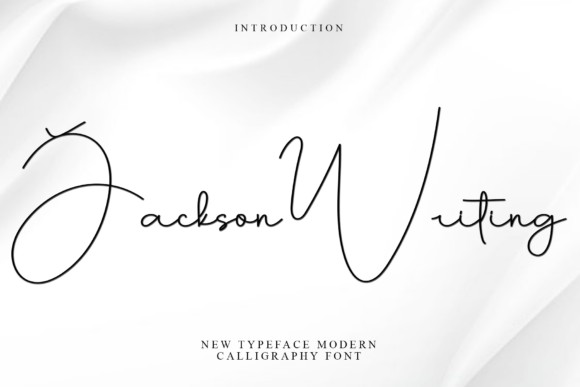
Introducing Jackson Writing Font: A Unique and Versatile Typeface
The Jackson Writing Font is a beautiful and eye-catching typeface that has been designed with a soft, unique touch. Its distinctive strokes give it a special character, making it a meaningful and versatile font for future use. With its various characters, it’s perfect for design projects, crafts, and other creative works. In this article, we’ll explore the features and benefits of the Jackson Writing Font, and why it’s an ideal choice for designers, artists, and creative professionals.
What is Jackson Writing Font?
The Jackson Writing Font is a carefully crafted typeface that boasts a unique and distinctive style. Its soft, rounded edges and flowing strokes give it a warm and inviting appearance, making it perfect for a wide range of design projects. Whether you’re working on a logo, brochure, or website, this font is sure to add a touch of elegance and sophistication.
Key Features of Jackson Writing Font
- Unique and Distinctive Style: The Jackson Writing Font has a one-of-a-kind design that sets it apart from other typefaces. Its soft, rounded edges and flowing strokes give it a special character that is sure to grab attention.
- Versatile and Meaningful: This font is perfect for a wide range of design projects, from logos and brochures to websites and social media graphics. Its distinctive style makes it a meaningful addition to any design.
- Various Characters: The Jackson Writing Font comes with a range of characters, making it perfect for creative projects that require a high level of customization.
Benefits of Using Jackson Writing Font
The Jackson Writing Font offers a range of benefits for designers, artists, and creative professionals. Some of the key benefits include:
- Enhances Designs: This font is designed to add a touch of elegance and sophistication to any design. Its unique style and distinctive strokes make it perfect for creating visually appealing graphics.
- Perfect for Creative Projects: The Jackson Writing Font is ideal for creative projects that require a high level of customization. Its various characters and versatile style make it perfect for design projects, crafts, and other creative works.
- Appeals to a Wide Range of Audiences: This font is designed to appeal to a wide range of audiences across different artistic and creative fields. Its unique style and distinctive strokes make it perfect for designers, artists, and creative professionals who want to create visually appealing graphics.
Use Cases for Jackson Writing Font
The Jackson Writing Font is perfect for a wide range of design projects, including:
- Logo Design: This font is perfect for creating unique and memorable logos that stand out from the crowd.
- Brochure Design: The Jackson Writing Font is ideal for creating visually appealing brochures that showcase a brand’s products or services.
- Website Design: This font is perfect for creating elegant and sophisticated website designs that appeal to a wide range of audiences.
- Social Media Graphics: The Jackson Writing Font is ideal for creating visually appealing social media graphics that grab attention and engage audiences.
Why Choose Jackson Writing Font?
There are many reasons why designers, artists, and creative professionals should choose the Jackson Writing Font for their design projects. Some of the key reasons include:
- Unique and Distinctive Style: This font has a one-of-a-kind design that sets it apart from other typefaces.
- Versatile and Meaningful: The Jackson Writing Font is perfect for a wide range of design projects, from logos and brochures to websites and social media graphics.
- High-Quality Design: This font is carefully crafted to ensure that it meets the highest standards of design and quality.
- Easy to Use: The Jackson Writing Font is compatible with a range of applications, making it easy to use across different devices and software.
The Jackson Writing Font is a beautiful and eye-catching typeface that is perfect for designers, artists, and creative professionals. Its unique and distinctive style, versatile and meaningful design, and high-quality construction make it an ideal choice for a wide range of design projects. Whether you’re working on a logo, brochure, website, or social media graphic, this font is sure to add a touch of elegance and sophistication.
- What is the Jackson Writing Font?: The Jackson Writing Font is a beautiful and eye-catching typeface that has been designed with a soft, unique touch.
- What are the key features of the Jackson Writing Font?: The key features of this font include its unique and distinctive style, versatile and meaningful design, various characters, and compatibility with various applications.
- What are the benefits of using the Jackson Writing Font?: The benefits of using this font include enhancing designs, perfect for creative projects, and appealing to a wide range of audiences.
- What are some use cases for the Jackson Writing Font?: Some use cases for this font include logo design, brochure design, website design, and social media graphics.